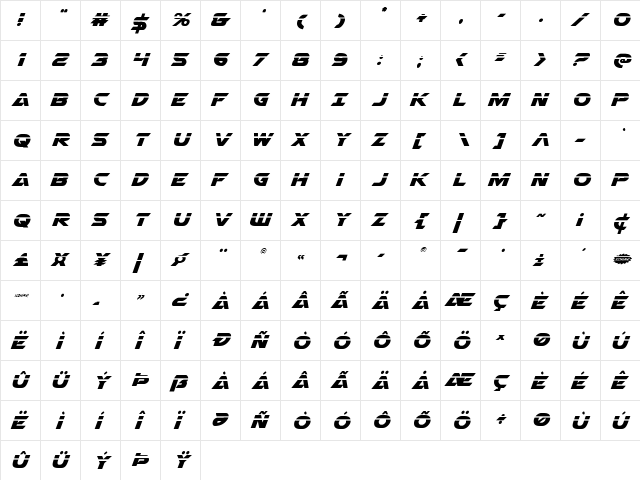
Airstrike Laser Regular
Design Context for Airstrike Laser Typeface
Airstrike Laser is a composed and adaptable typeface that performs quietly and consistently across a wide range of design contexts.